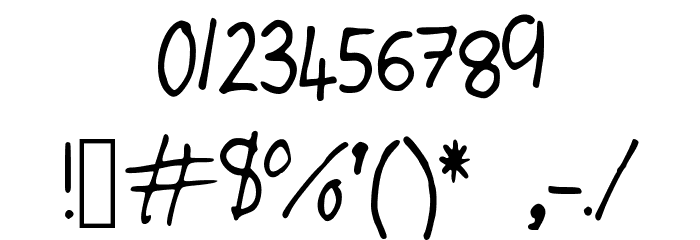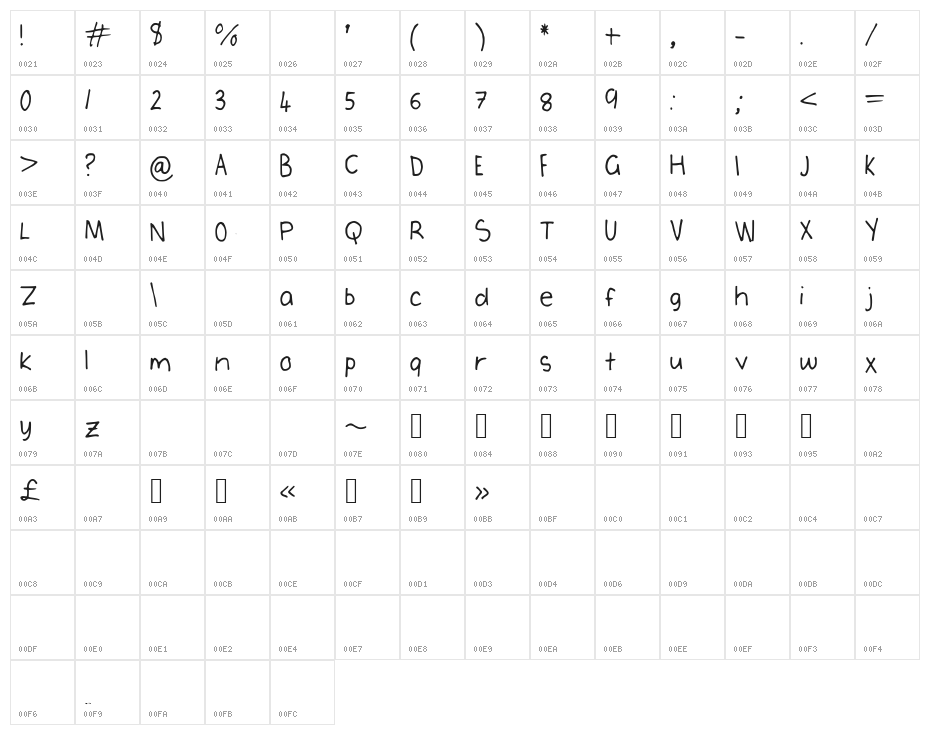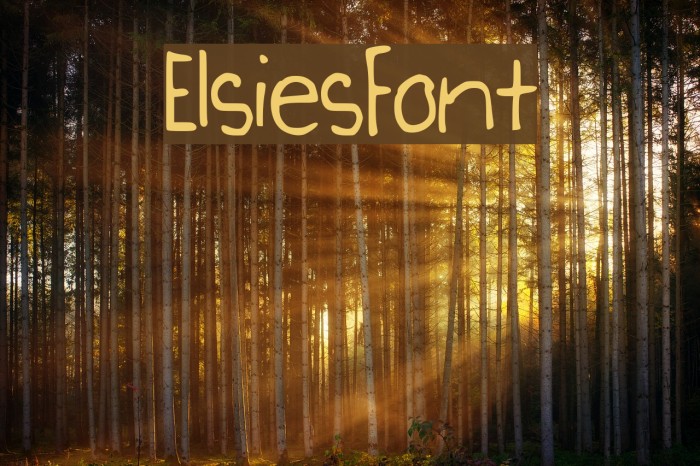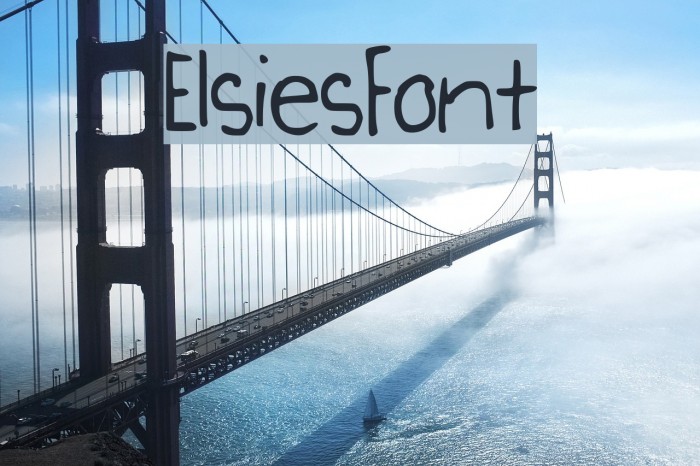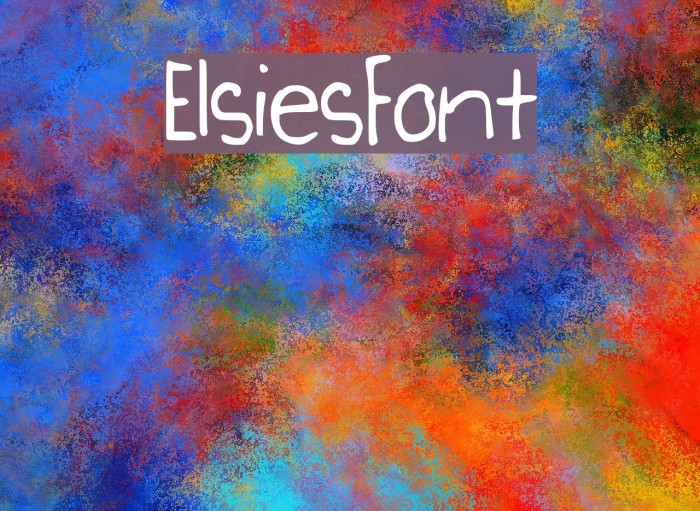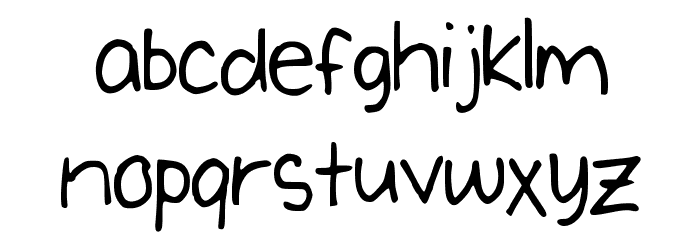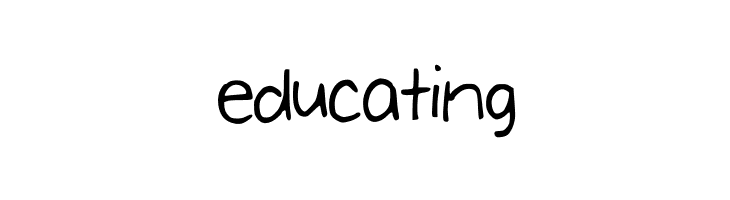
ElsiesFont Font
ElsiesFont Description
This font exudes a playful and casual handwritten style, characterized by its irregular and organic letterforms. The strokes are slightly uneven, giving it a personal and informal touch, reminiscent of a friendly note or a casual message. The uppercase and lowercase letters maintain a consistent style, with rounded edges and a slight tilt that adds to its approachable nature. The numerals and special characters follow the same aesthetic, ensuring a cohesive look across all text elements. This font is perfect for projects that require a warm, human touch, such as greeting cards, personal blogs, or children's book illustrations.
| Use Case | Headlines, Informal text, Personal projects |
| Proposed Projects | Ideal for greeting cards, personal blogs, children's books, and informal invitations. |